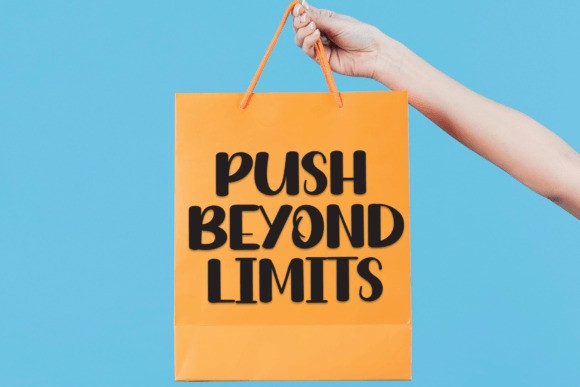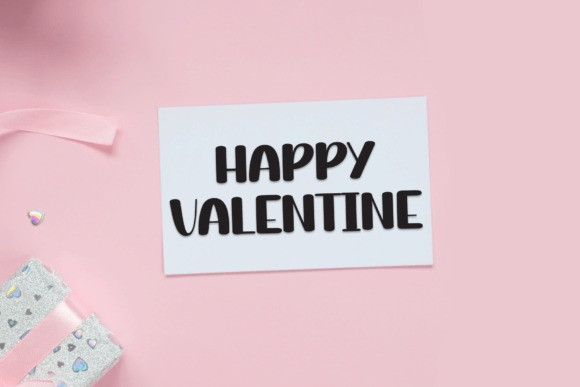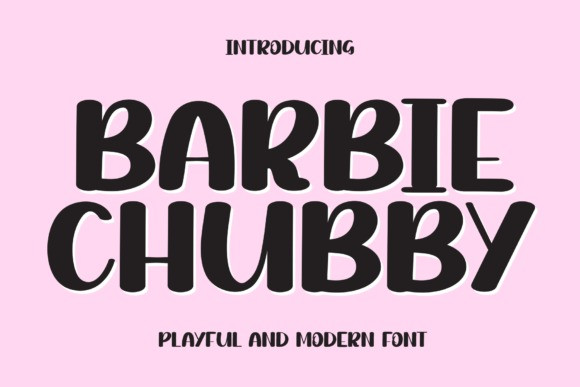
Barbie Chubby Font
Barbie Chubby Font is a bold and playful handwritten font that infuses projects with a lively charm. Its exuberant strokes and rounded letterforms exude a sense of fun and friendliness. Ideal for designs that demand a bold yet whimsical touch, Barbie Chubby brings a playful handwritten flair to your creative canvas.